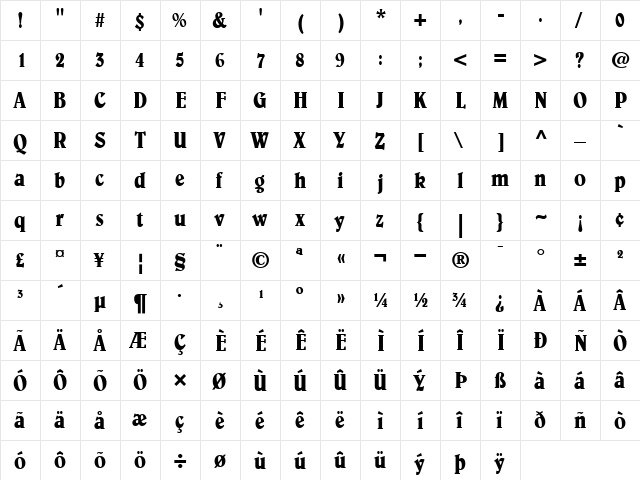
Belwe-Condensed Roman
Design Context for Belwe-Condensed Typeface
Belwe-Condensed is a composed and adaptable typeface that performs quietly and consistently across a wide range of design contexts. Its narrow stance lets it pack a punch even in space-constrained designs.
Pro Tip: Use Belwe-Condensed in both headline and body roles to test its range before committing to a single application.